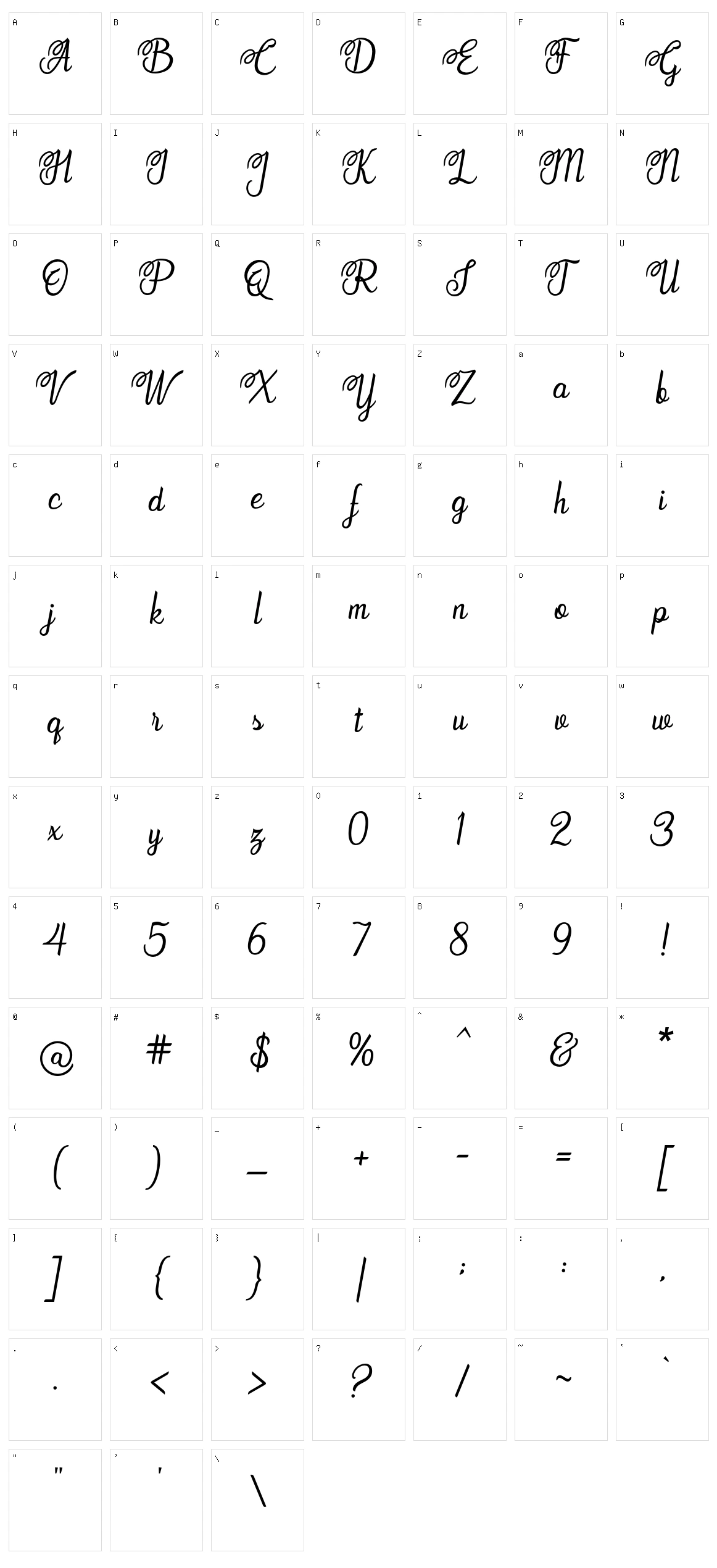
This is Elldier Font, It is perfect for wedding sign, advertisement, logo design, quote, product lable, product packaging, T-shirt Lettering design and any project.